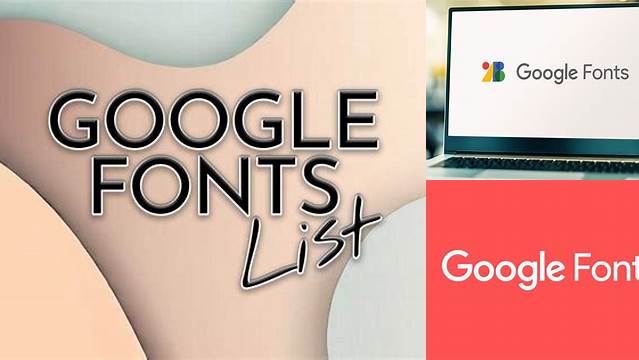
Hey guys! Ever found yourself staring at a beautiful website, admiring its typography, and wishing you could use those same gorgeous fonts in your own projects on your PC? Well, you're in luck! Today, we're diving deep into the world of Google Fonts free download for PC. It's an absolute goldmine for designers, bloggers, and anyone who wants to add a touch of professional polish to their documents, presentations, or social media graphics. Forget those pricey font subscriptions; Google Fonts offers a vast library of high-quality, licensable-for-commercial-use typefaces that you can download and use absolutely free. So, buckle up, because we're going to explore how to snag these incredible fonts and bring your creative visions to life on your computer. We'll cover everything from finding the perfect font to installing it seamlessly on your Windows or Mac system. Get ready to level up your design game, my friends!
Discovering the Vast Universe of Google Fonts
So, what exactly are Google Fonts, you ask? Think of it as a massive, super-organized digital library curated by Google, packed with thousands of diverse and high-quality fonts. The beauty of this platform is that it's not just about having a lot of options; it's about having excellent options that are freely available for both personal and commercial use. This means you can use them on your website, in your marketing materials, on your business cards, in your presentations, and even in your personal documents without worrying about licensing fees or legal headaches. How awesome is that? The platform is designed to be super user-friendly, allowing you to filter fonts by category (like Serif, Sans Serif, Display, Handwriting, Monospace), by properties (like thickness, slant, width), and even by language support. You can also preview any font with your own custom text, which is a lifesaver when you're trying to find the perfect match for your project. Looking for something elegant and classic for a wedding invitation? Or perhaps a bold, modern font for a tech startup's branding? Google Fonts has you covered. The search and discovery features are incredibly robust. You can sort fonts by popularity, date added, or alphabetically. Plus, they offer curated collections and trending fonts, which are fantastic for discovering new favorites or finding inspiration. The commitment to open-source typography means that designers worldwide contribute to this ever-growing collection, ensuring a constant influx of fresh, innovative, and beautifully crafted typefaces. It's truly a community-driven effort to make great typography accessible to everyone, everywhere.
Why Google Fonts are a Designer's Best Friend
Let's talk about why Google Fonts free download for PC is such a game-changer, especially for us creative folks. First off, the quality is just phenomenal. These aren't your run-of-the-mill, cheesy fonts you might find scattered across the internet. Google works with foundries and designers to ensure that each font is meticulously crafted, offering excellent legibility, a wide range of weights and styles (think thin, light, regular, medium, bold, black, and corresponding italics!), and extensive language support. This means you can rely on Google Fonts for everything from body text in a lengthy article to the headline on a flashy poster. The versatility is another huge plus. Whether your aesthetic is minimalist and clean, retro and quirky, or sophisticated and elegant, there's a Google Font that will fit your vibe. You can mix and match different font families to create unique pairings, adding depth and personality to your designs. Imagine pairing a sturdy sans-serif for your main headings with a delicate script for accent text – it's all possible with the freedom Google Fonts provides. Furthermore, the accessibility factor is unparalleled. As mentioned, they are completely free for commercial use, which is a massive cost-saver if you're a freelancer, a small business owner, or just starting out. You don't need to break the bank on expensive font licenses to achieve a professional look. And let's not forget the performance aspect. Google Fonts are optimized for the web, meaning they load quickly and display beautifully across all devices. While we're focusing on downloading for PC use, this web optimization translates to high-quality rendering even in desktop applications. The constant updates and additions mean the library is always fresh, keeping your design toolkit current with the latest typographic trends. It’s like having a personal, always-evolving font library at your fingertips, ready to be deployed whenever inspiration strikes.